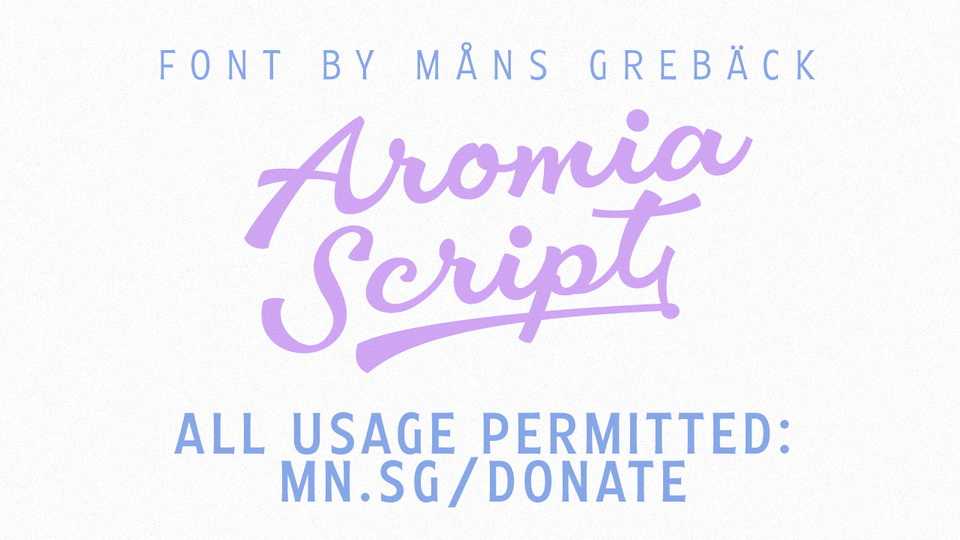
Download Aromia Script font, a smooth-flowing typeface inspired by vintage hand lettering. Aromia Script is a highly usable, powerful font. Perfect for everything from food packaging to wedding invitations, logos to magazine headings.
Designer: Måns Grebäck